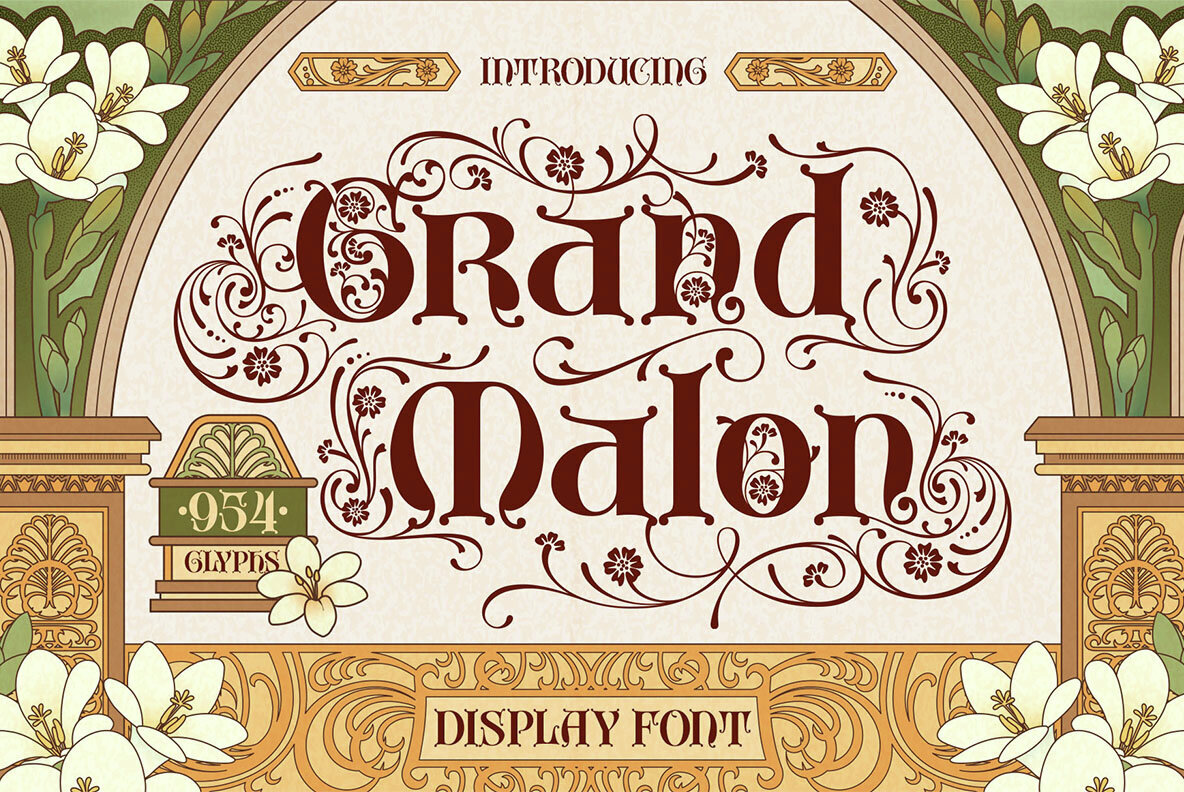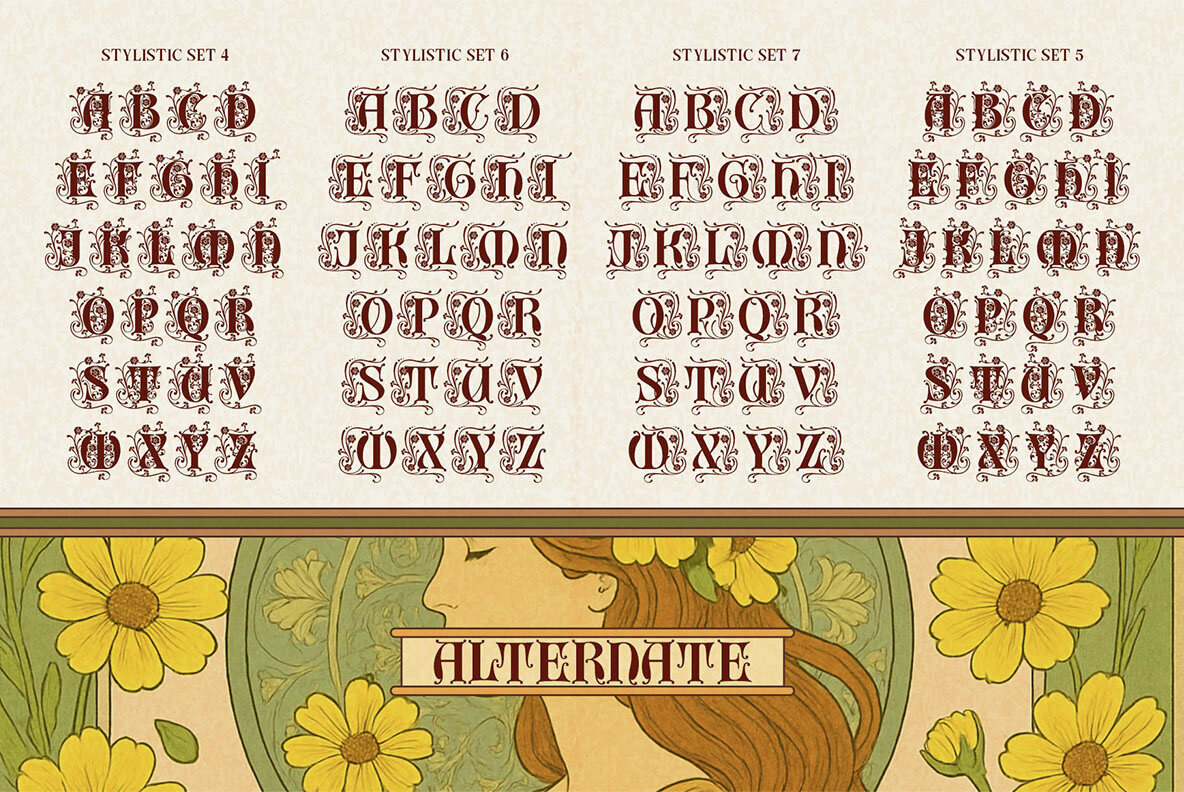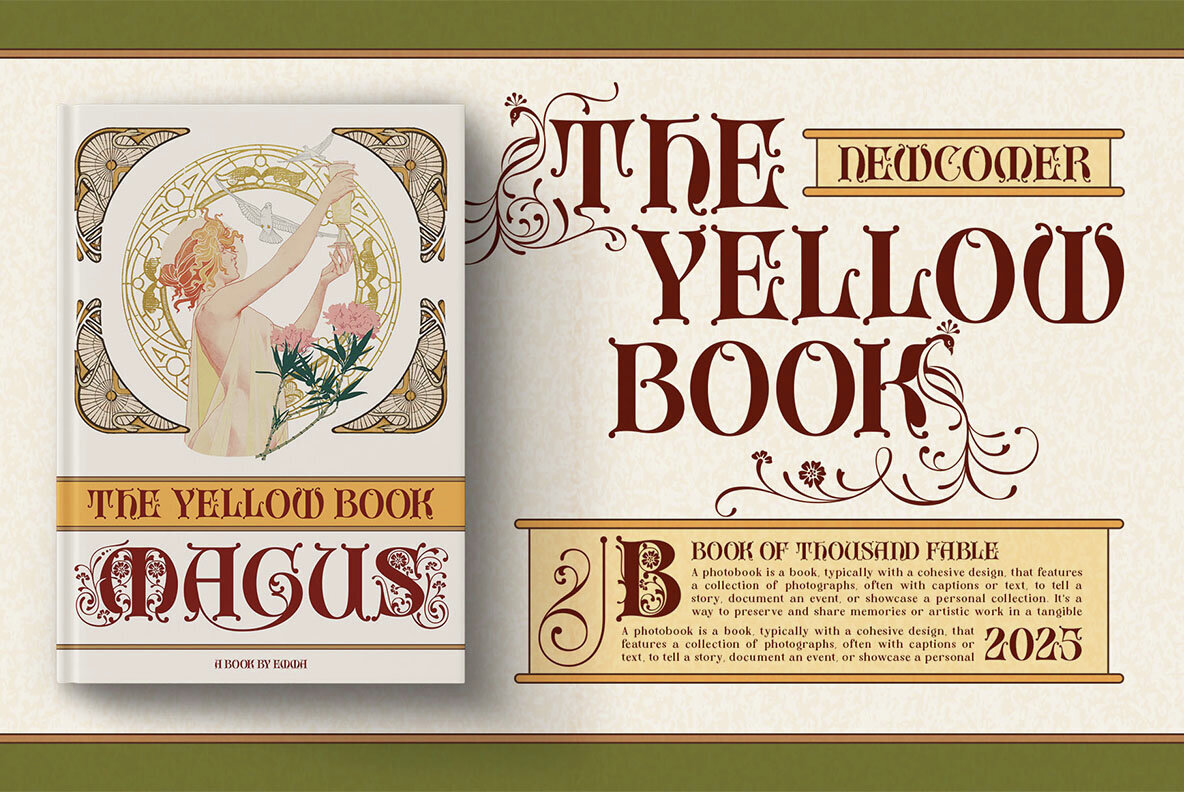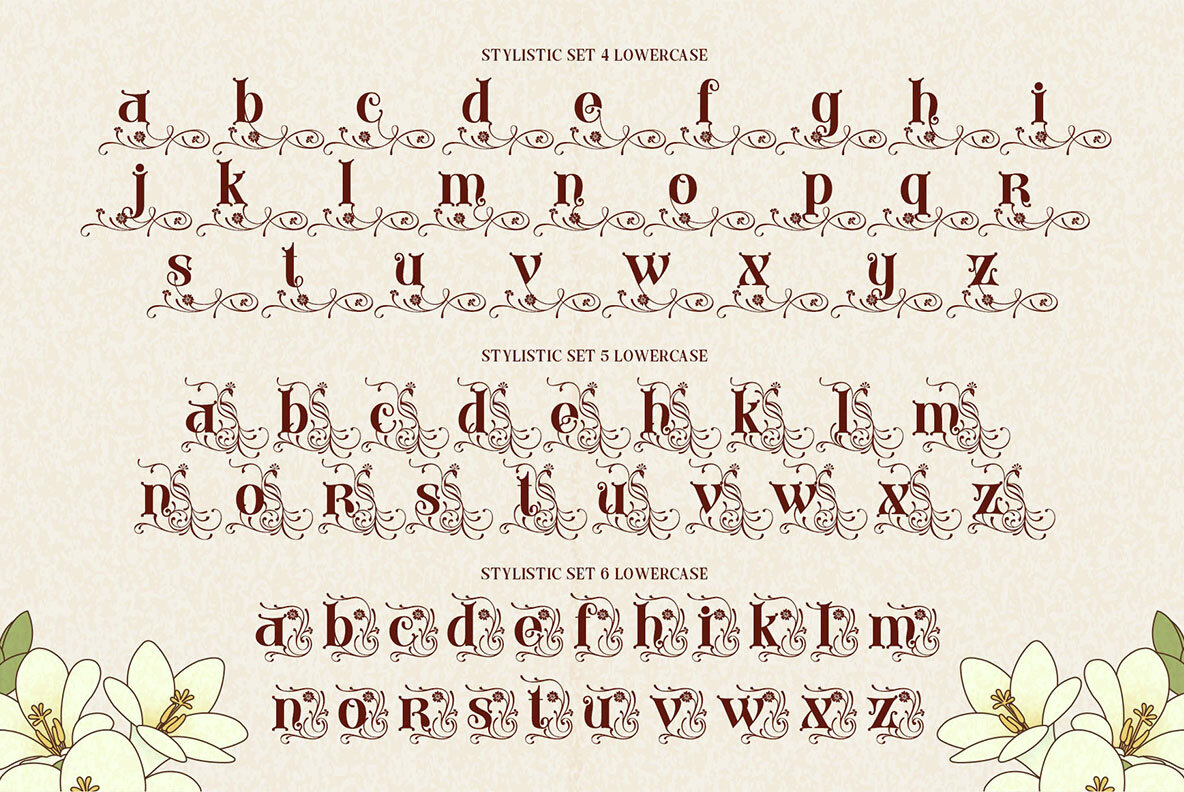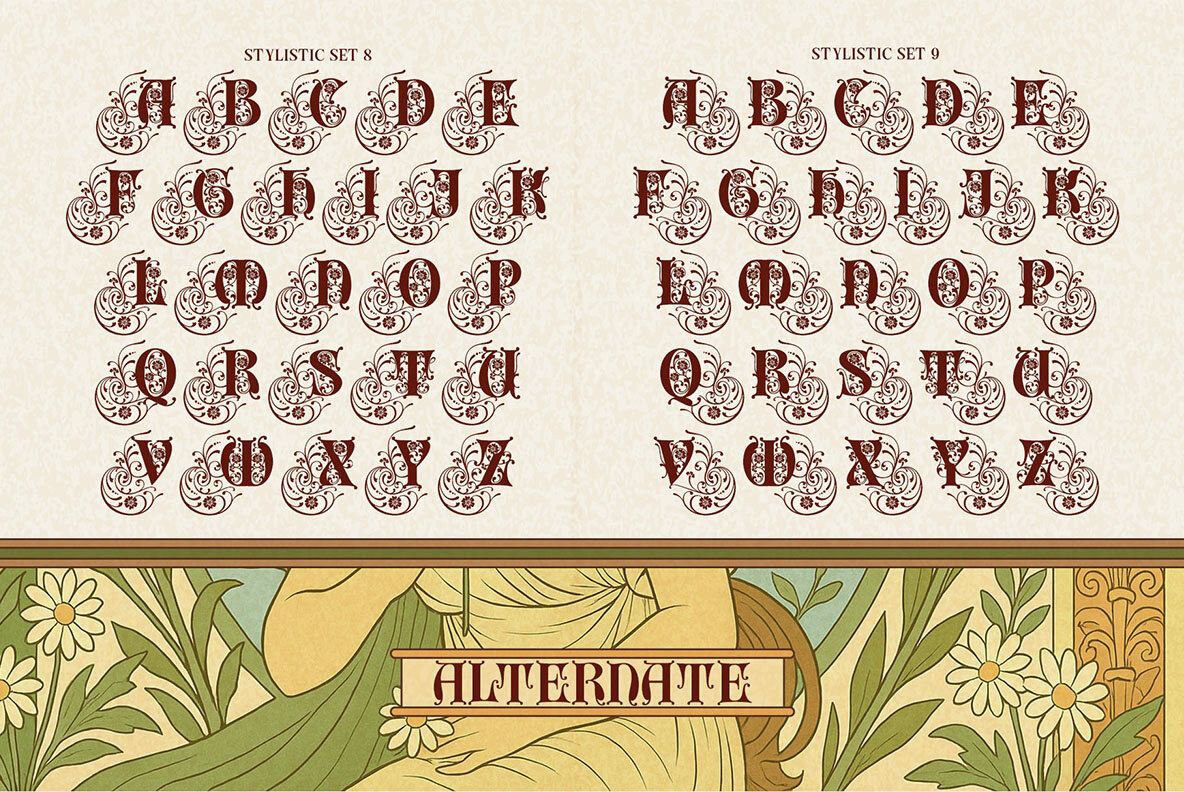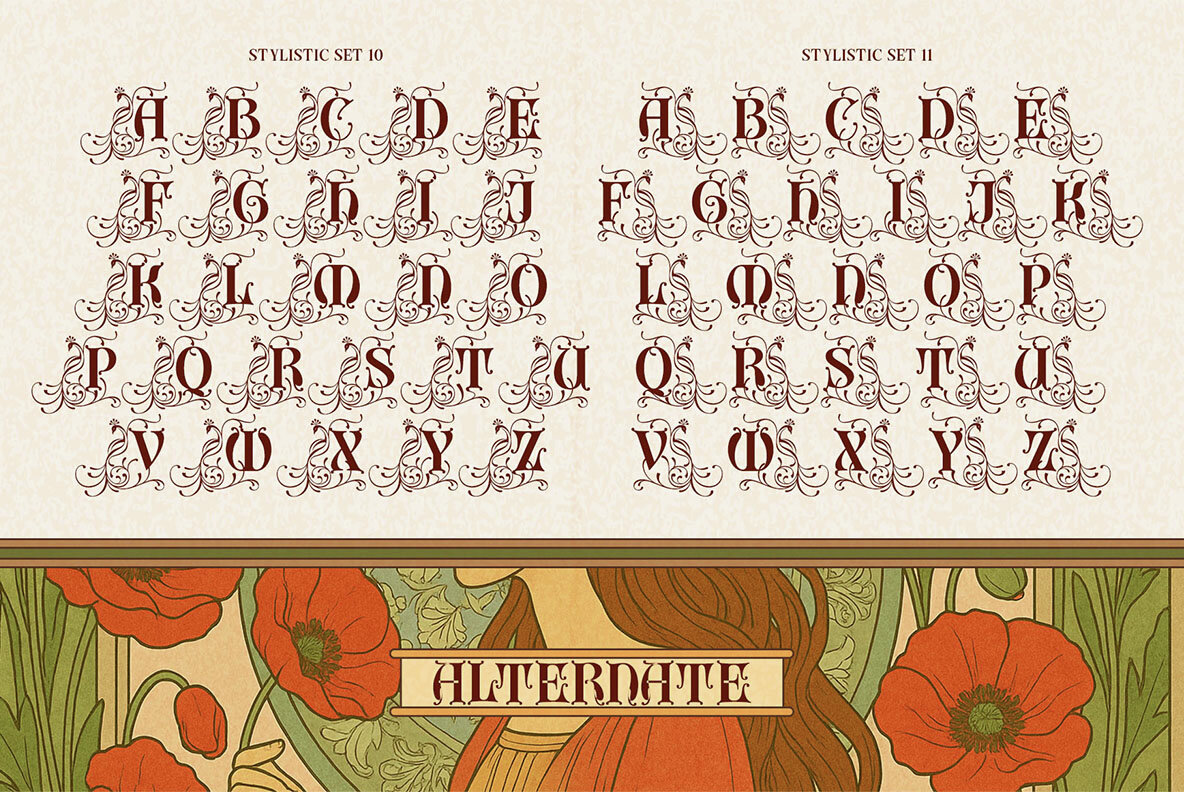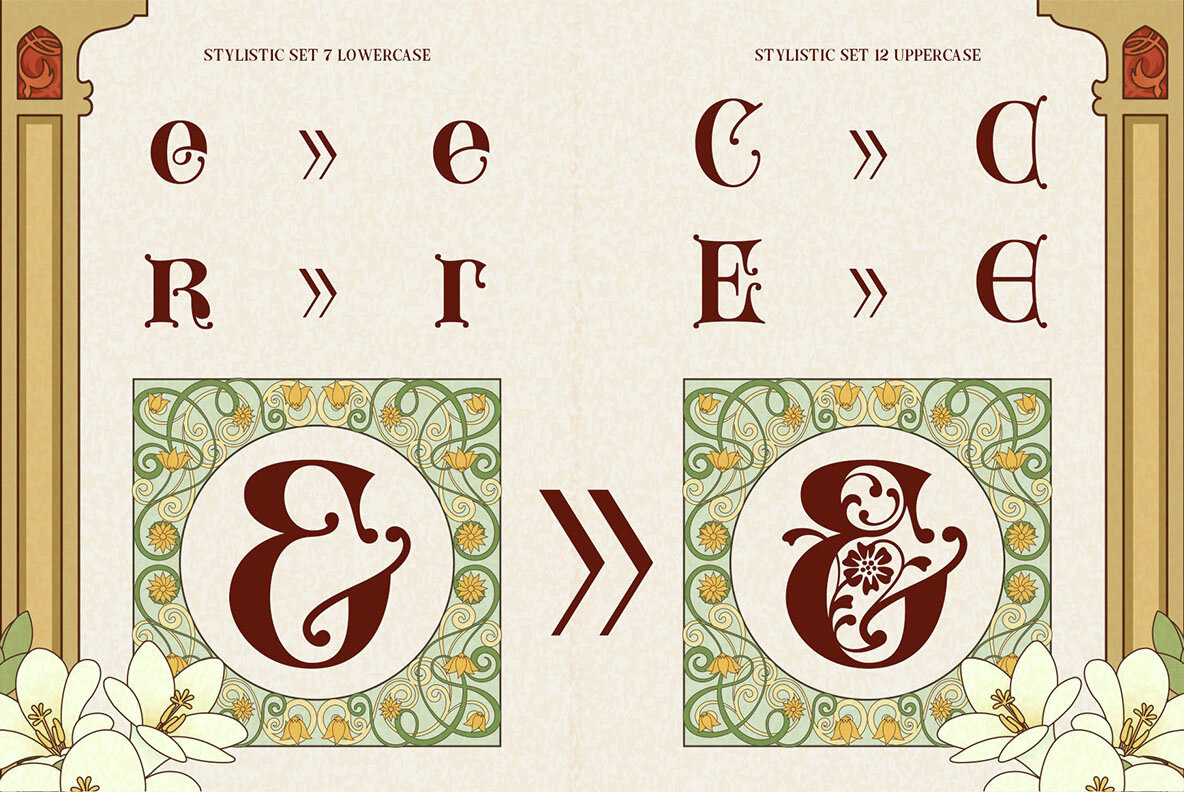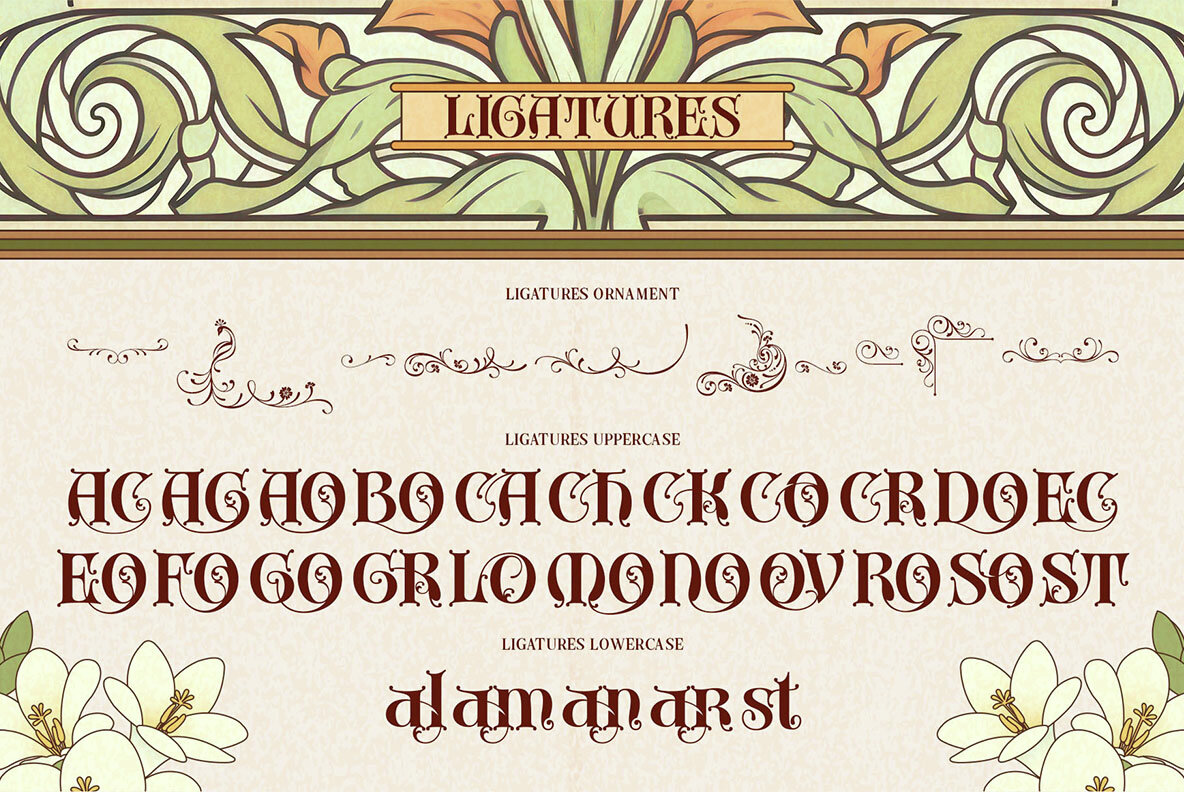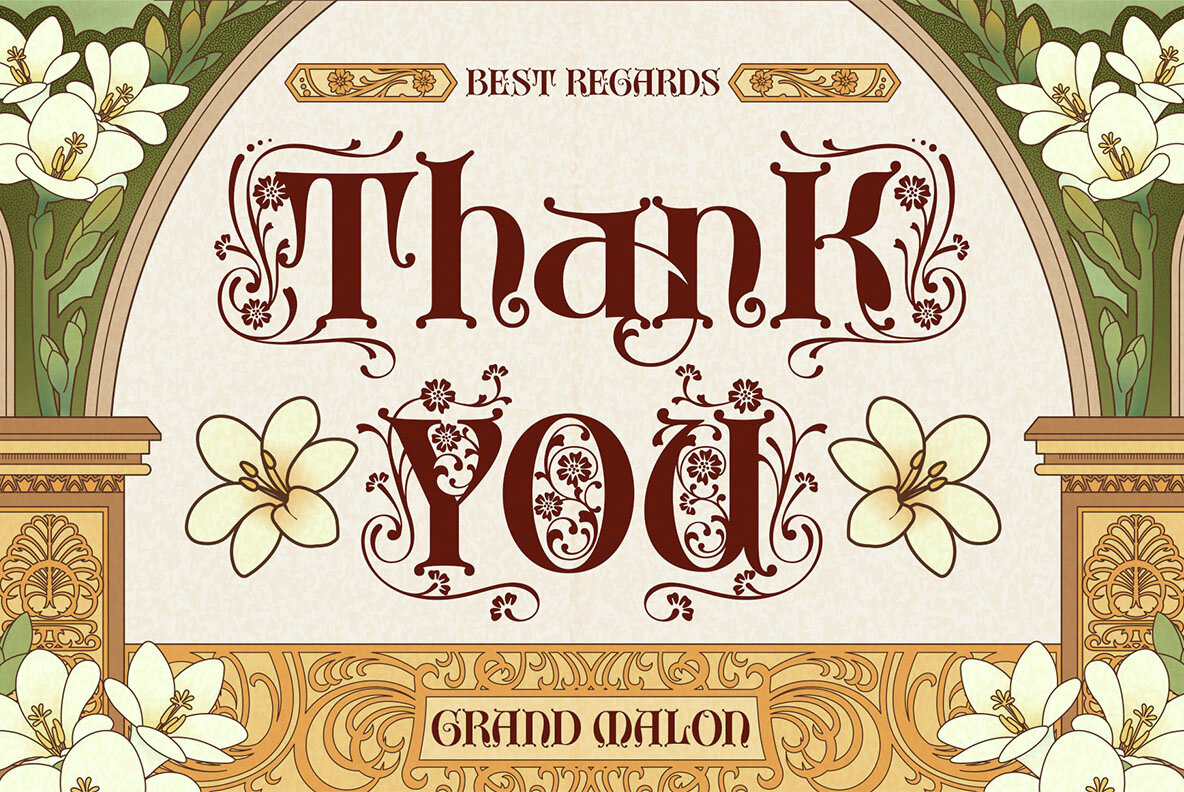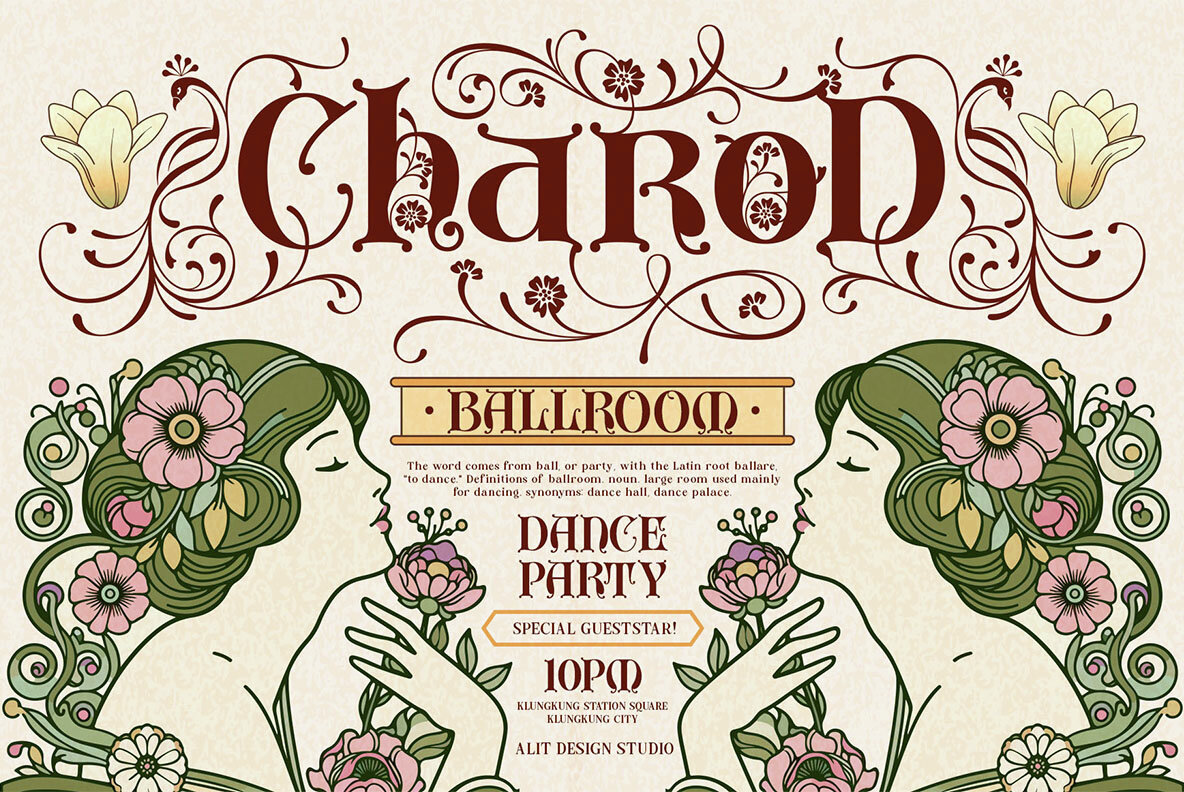
Grand Malon Font
Grand Malon Regular
Experience the allure of timeless Gothic elegance with Grand Malon, a remarkable display typeface that captures the ornate beauty of classic serif styles. Inspired by the typography in ancient manuscripts, Grand Malon showcases digital craftsmanship with every meticulously designed letter, adorned in graceful swirls and nature-inspired embellishments. This font is more than a collection of characters; it’s your gateway to creating captivating designs. What makes Grand Malon truly exceptional is its luxurious array of decorative components. With flowing Art Nouveau-inspired swirls, delicate floral motifs, and the majestic elegance of peacock feathers, each letter is intricately designed for unparalleled sophistication and visual appeal. Grand Malon is ideal for projects that demand sophistication and distinction: from luxury branding and elegant invitations to captivating book covers and stylish apparel designs. Bring your creations to life with the bold yet graceful allure of Grand Malon and let your designs blossom with timeless charm.Grand Malon: A Gothic Display Font
A Symphony of Decorative Elements
Unleash Creativity with 954 Glyphs
Perfect for Distinguished Projects